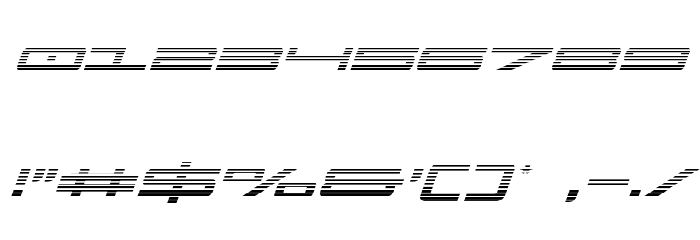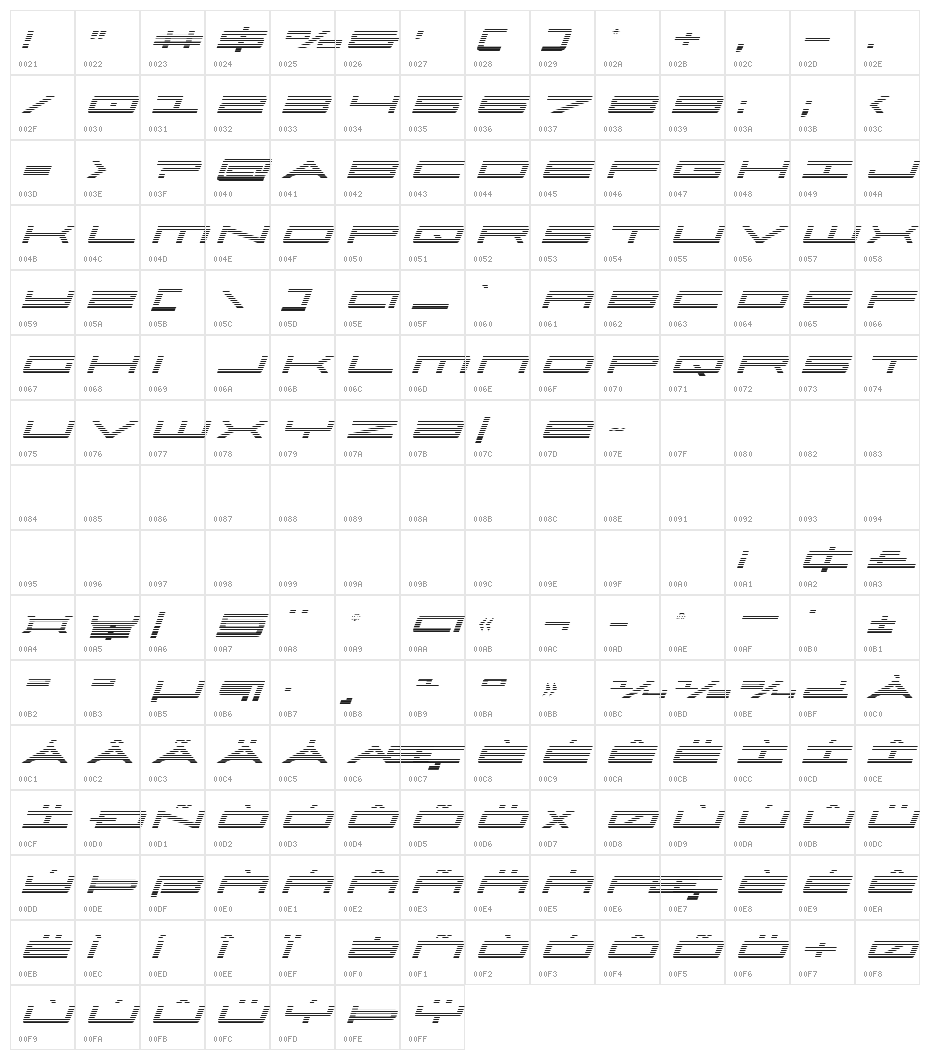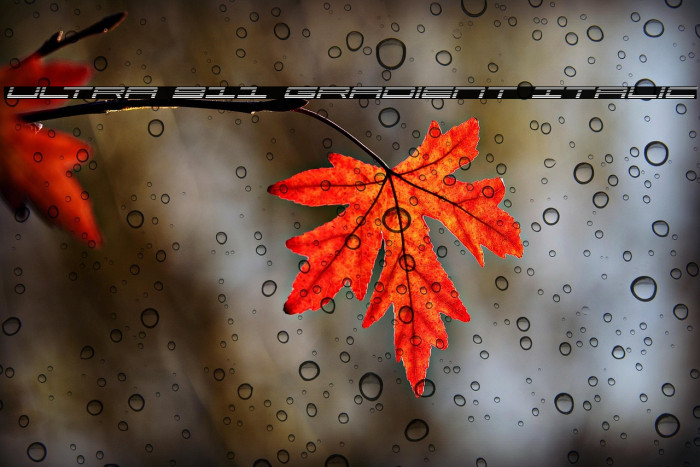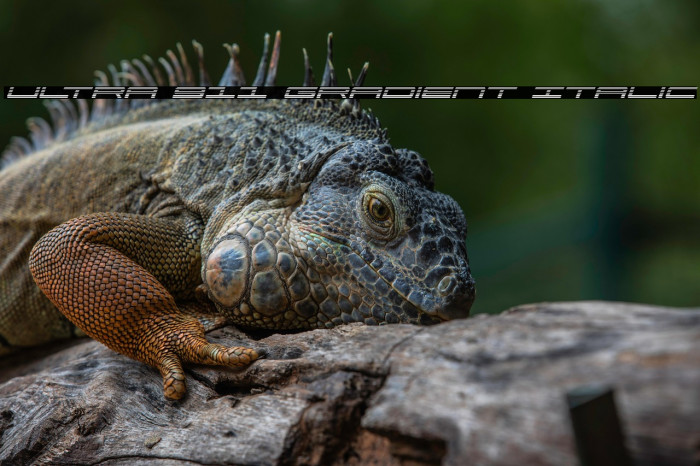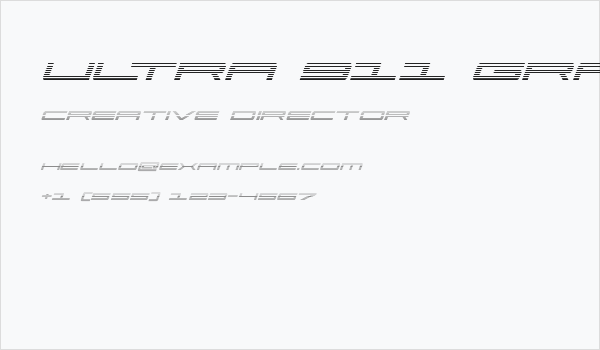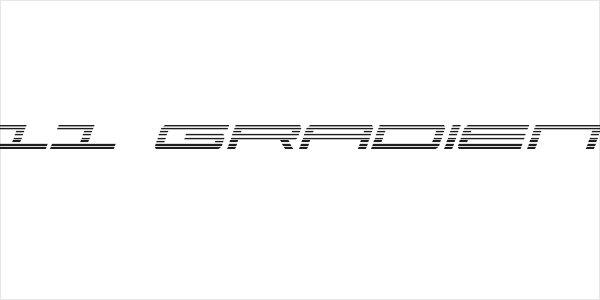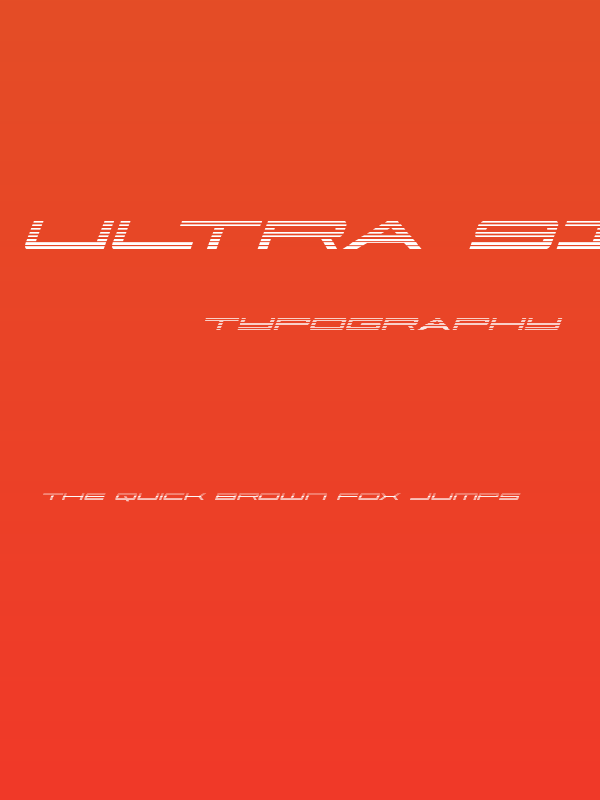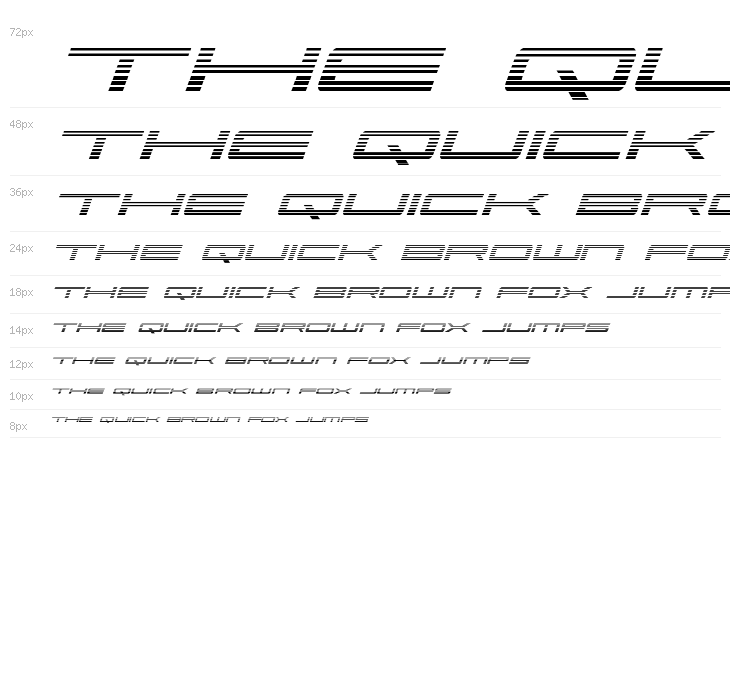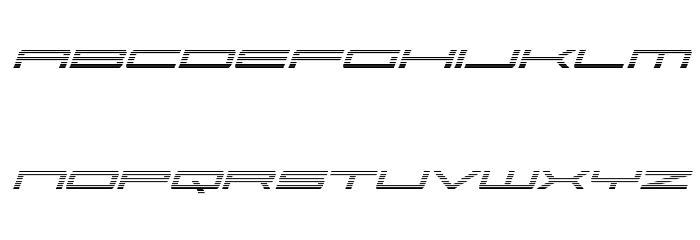
Ultra 911 Gradient Italic Font
Ultra 911 Gradient Italic Description
This font features a futuristic and dynamic design with a distinct italic slant, creating a sense of motion and speed. The characters are composed of multiple parallel lines, giving a gradient-like appearance that adds depth and dimension. The uppercase and lowercase letters maintain a consistent style, with sharp angles and clean lines. Numbers and special characters follow the same design principles, ensuring uniformity across all glyphs. This font is ideal for projects that require a modern and edgy aesthetic.
| Proposed Projects | Ideal for sci-fi themed designs, automotive branding, tech company logos, and video game titles. |